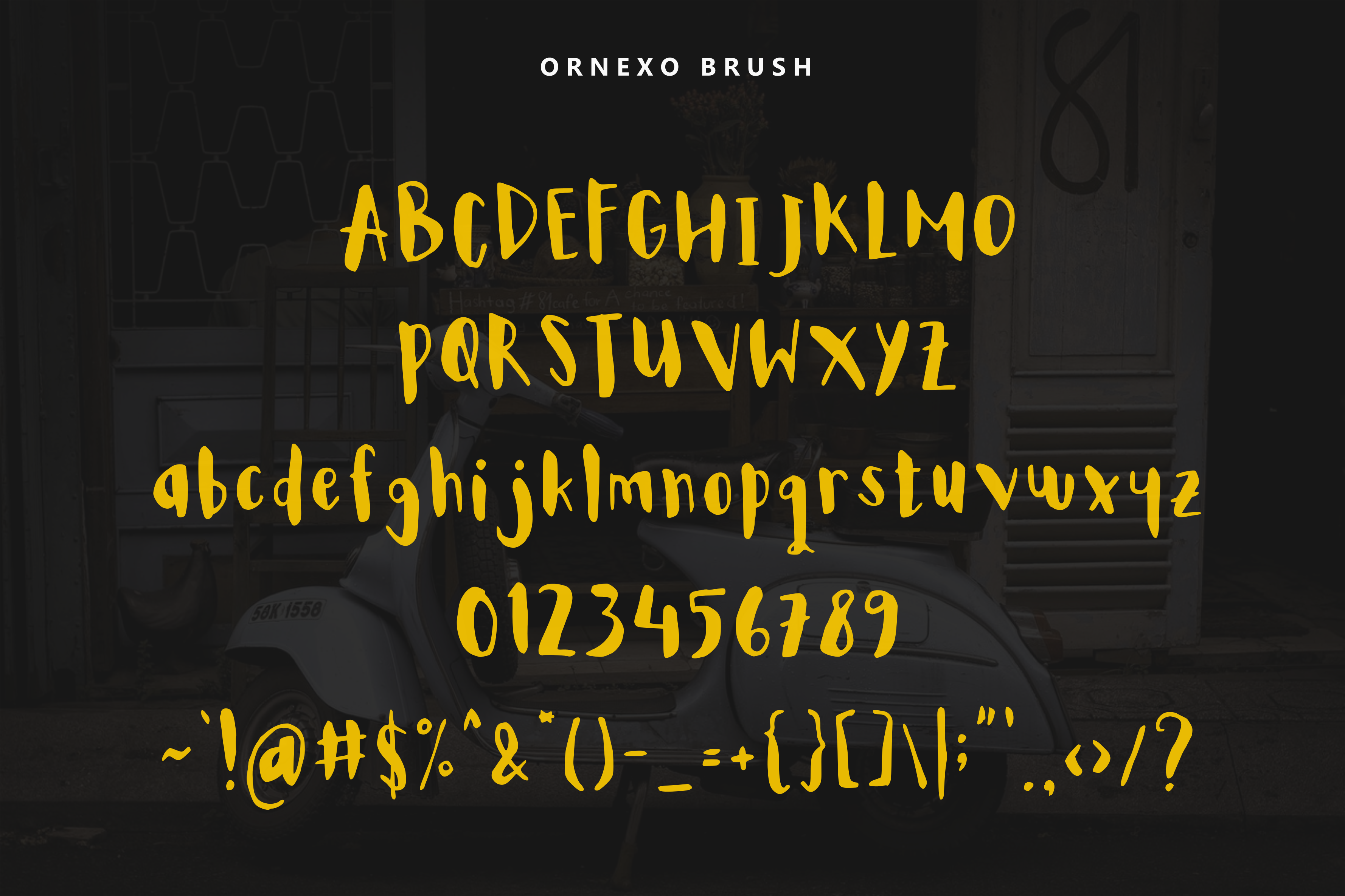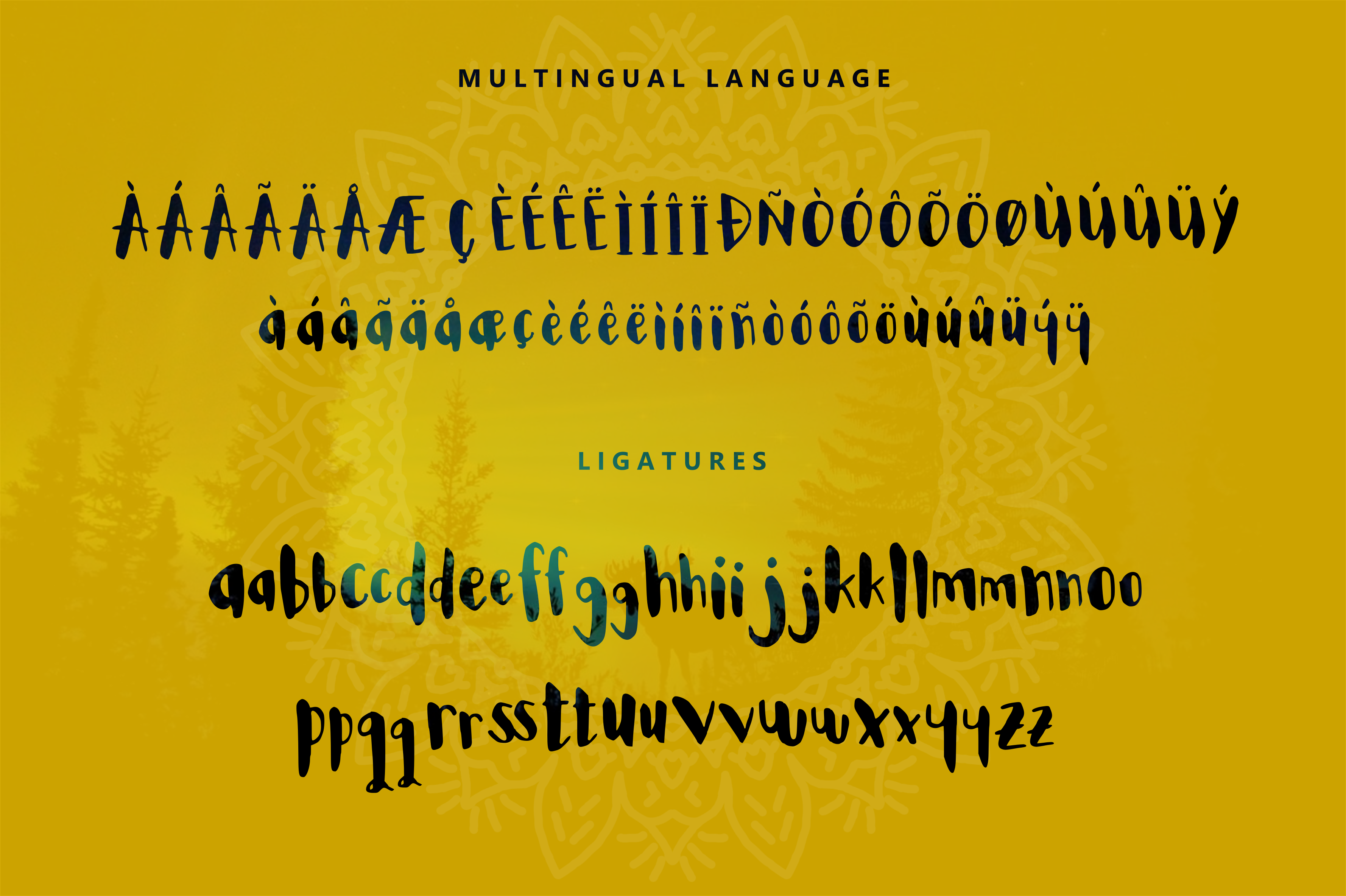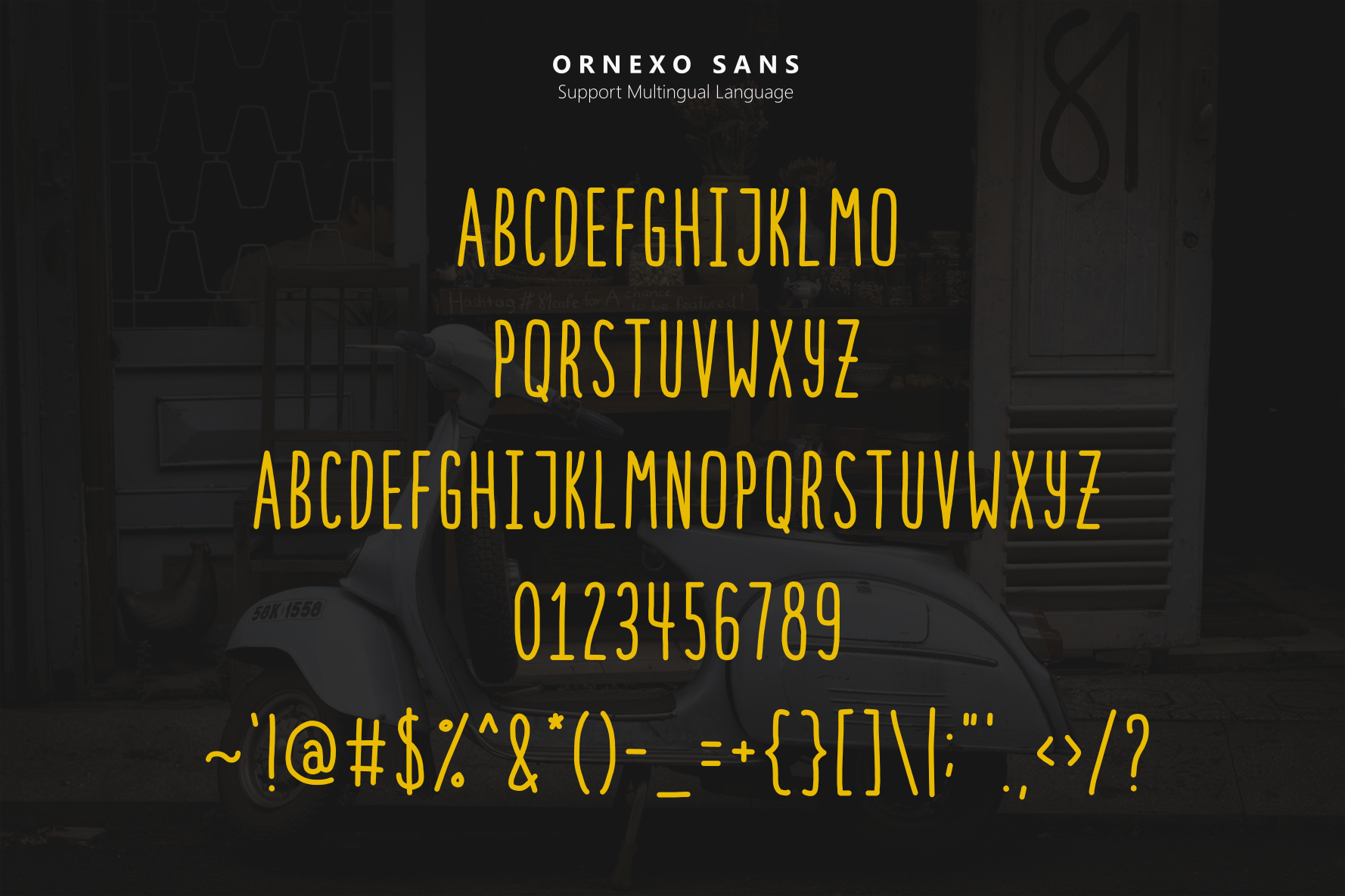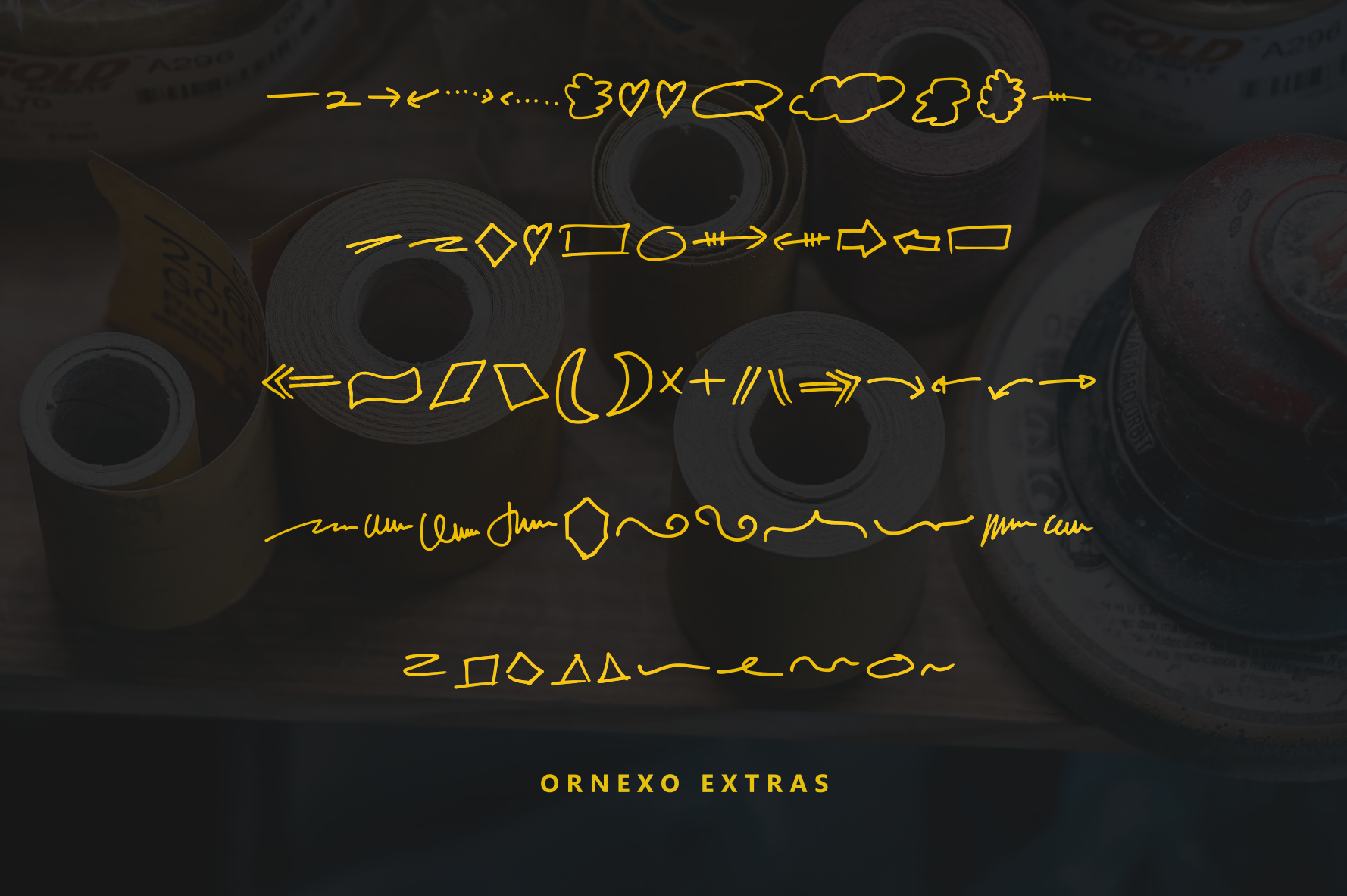
Introduction to Ornexo Font
Have you ever stared at a blank canvas, searching for the perfect spark to ignite your creative project? For designers, finding the right font can be the difference between a mediocre and a mesmerizing design. I still remember the moment I stumbled upon the Ornexo Font – it was like a breath of fresh air on a creative dry spell.
As a free download, the Ornexo Font has become a go-to design resource for many creatives. With its two distinct styles – Brush & Sans – it’s the perfect companion for any high-quality design project. Whether you’re working on a project with a transparent background or need a unique touch for your next graphic design piece, Ornexo Font is an invaluable asset in your design arsenal.
Key Features of Ornexo Font
- High-quality design for creative projects, suitable for use in various mediums such as digital and print.
- Comes with a transparent background, allowing for seamless integration into any design.
- Unique characteristics include its modern and elegant aesthetic, making it perfect for use in logos, branding, and typography-based designs.
- Designed to be scalable, ensuring that the font remains crisp and clear even at large sizes.
Honest Review: Ornexo Font
I recently stumbled upon the Ornexo Font, and I must say it’s been a game-changer for my creative projects. The high quality of the font has elevated my designs to a whole new level.
Here are some things that work well with the Ornexo Font:
- ✨ Transparent background: This feature has been super helpful for designing graphics with a transparent background.
- ✨ Versatility: The Ornexo Font is incredibly versatile and can be used for a wide range of design projects.
- ⚠️ Limited font styles: While the Ornexo Font is high quality, it’s limited to a few font styles, which might not be ideal for projects that require a wide range of font styles.
Overall, I’m really impressed with the Ornexo Font. It’s a valuable design resource that I’ll definitely be using for my future creative projects.
Tips for Getting the Most Out of Ornexo Font
For the best results, use the Ornexo Font in a creative project that requires a high-quality, transparent background. Experiment with different font sizes and colors to achieve the desired effect.
The Ornexo Font is ideal for use in various design applications, including logos, business cards, and brochures. It’s also a great resource for designers looking for a unique and creative font to add to their designs.